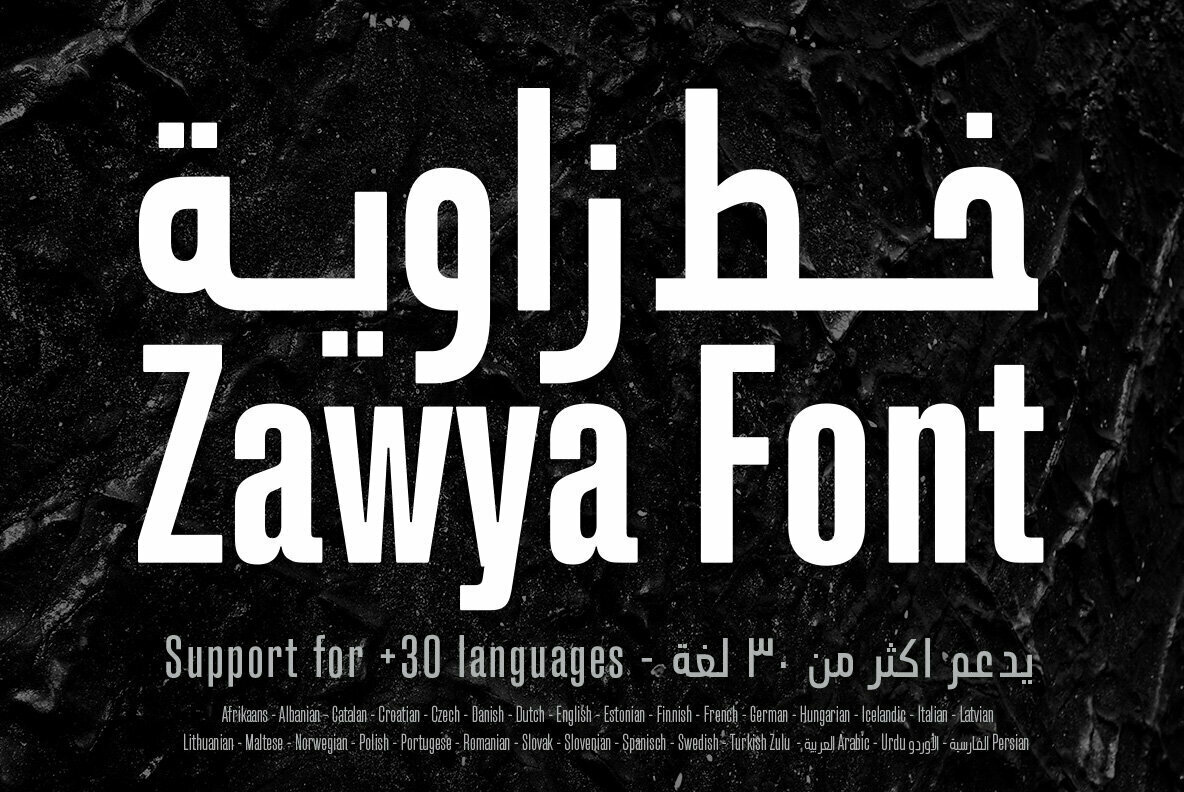
Zawya Pro Font
Zawya Pro Font is perfect for Middle Eastern cultural branding, architectural firm identities, cultural center communications, Islamic art exhibitions, luxury hospitality marketing, international business applications, cultural festival materials, and sophisticated cross-cultural advertising campaigns. This elegant typeface works beautifully in both digital applications and print media where cultural sophistication and international appeal are essential design considerations.
What makes Zawya Pro Font so exciting is its masterful interpretation of Arabic architectural geometry and Islamic design principles through refined letterforms that honor traditional Middle Eastern aesthetics while maintaining contemporary functionality. The font features sophisticated characters with cultural proportions, geometric elegance, and architectural details that evoke the timeless beauty of Islamic art and the intellectual heritage of Middle Eastern civilization. Its cultured personality and international design make it ideal for brands seeking to communicate cultural appreciation, architectural excellence, and the rich artistic traditions of diverse global communities while maintaining professional quality across international applications.
The Zawya Pro Font family includes comprehensive weight variations from light to bold, along with matching italic styles and cultural alternates. Each style maintains the typeface's sophisticated character while offering extensive multilingual support including Arabic script compatibility, international numerals, culturally-inspired punctuation marks, and special symbols designed to enhance cross-cultural communications and global branding efforts across diverse international markets.
This remarkable typeface represents the perfect fusion of cultural heritage and contemporary professional typography for international and cultural industries. Whether you're developing cultural institution identities, creating international hospitality materials, or designing cross-cultural business communications, Zawya Pro Font Free Download provides the cultural sophistication and versatility needed to bridge diverse communities. The font's international appeal makes it particularly effective for cultural centers, international businesses, architectural firms, and organizations celebrating the beauty and wisdom of Middle Eastern artistic traditions.
The meticulously crafted cultural details and optimized international performance in Zawya Pro Font ensure both authentic elegance and clear communication across all global applications. Its sophisticated presence makes it perfect for cultural branding, international marketing materials, and cross-cultural communications where its full architectural character can create meaningful connections with audiences who appreciate the rich artistic heritage and contemporary relevance of Middle Eastern design traditions.